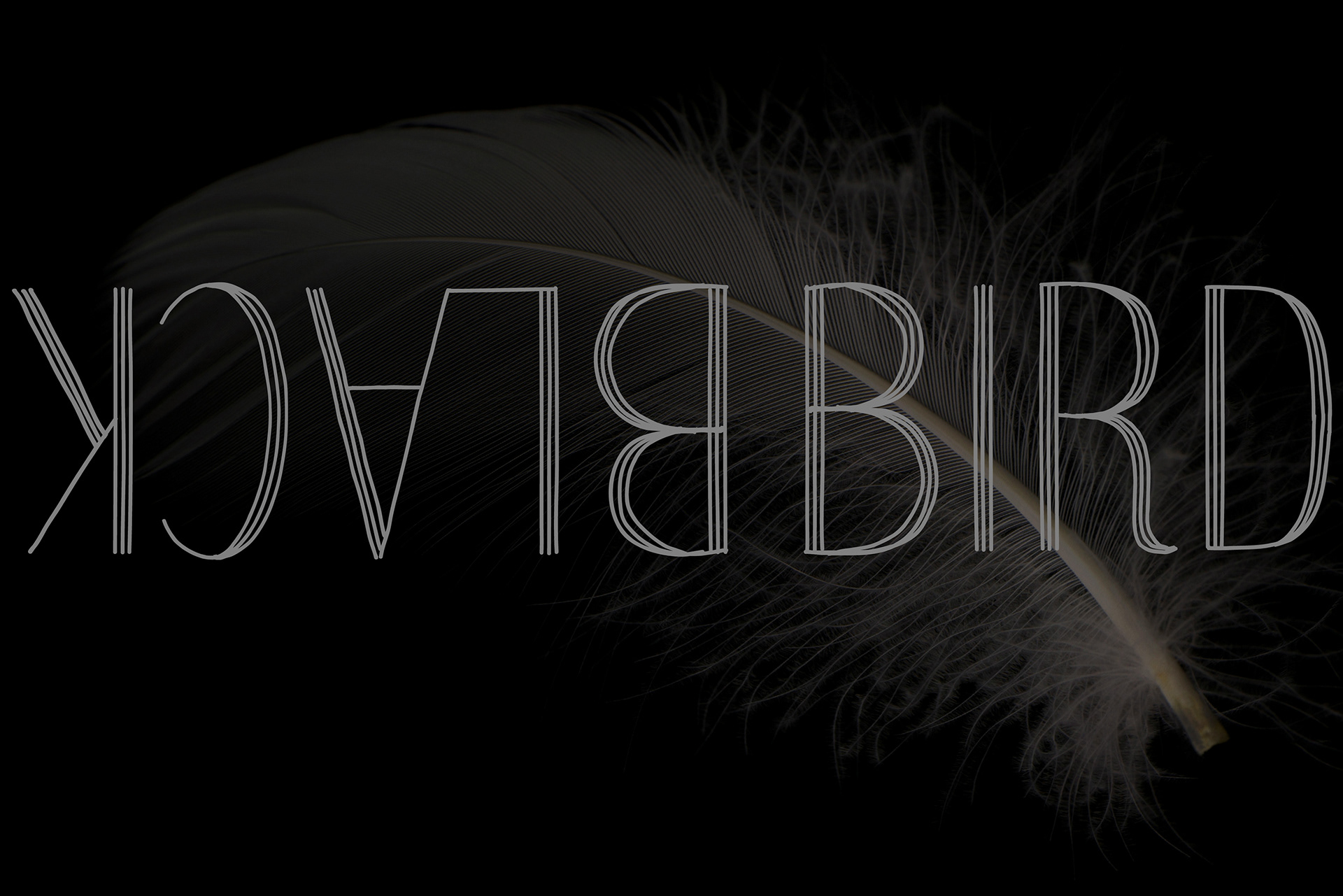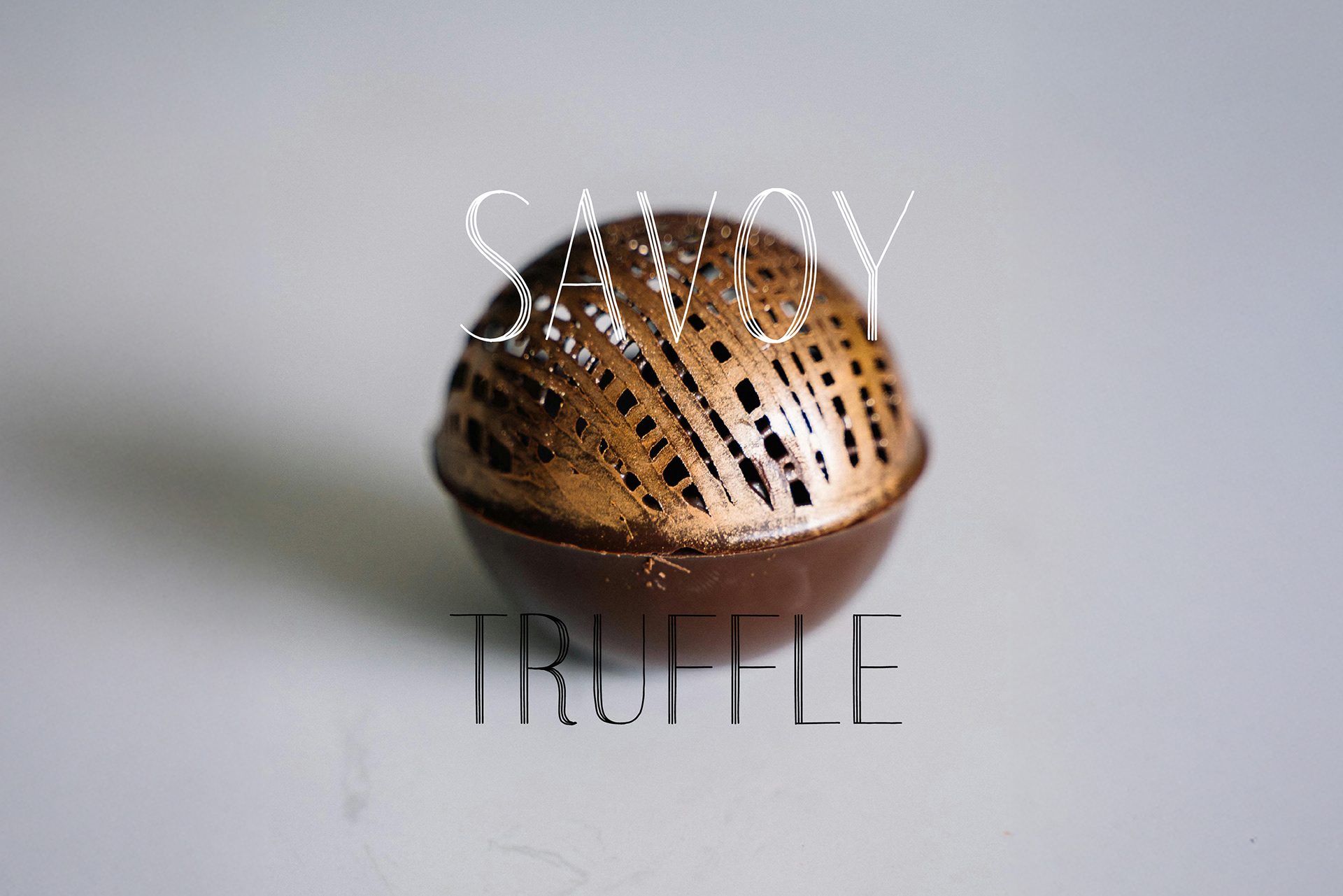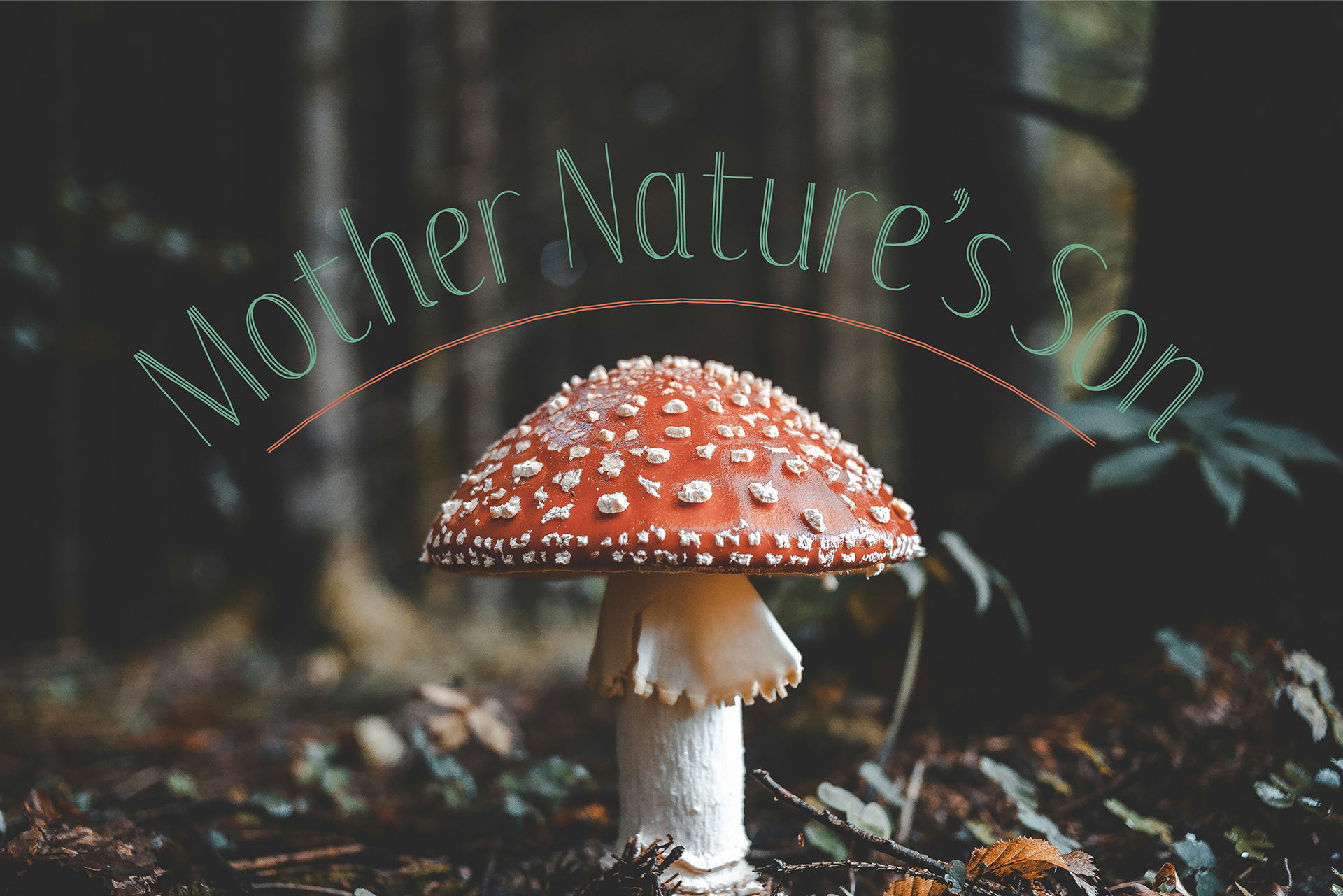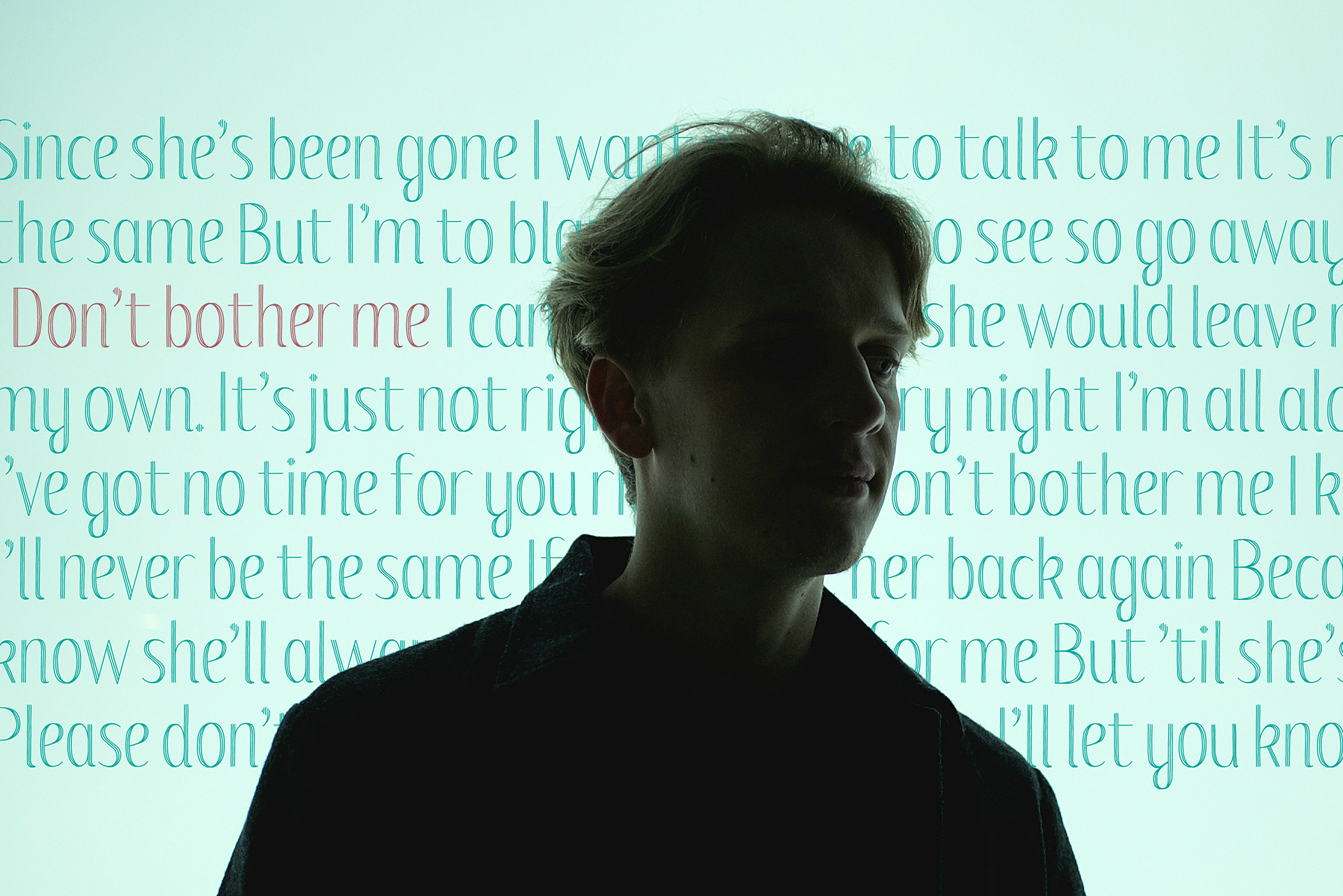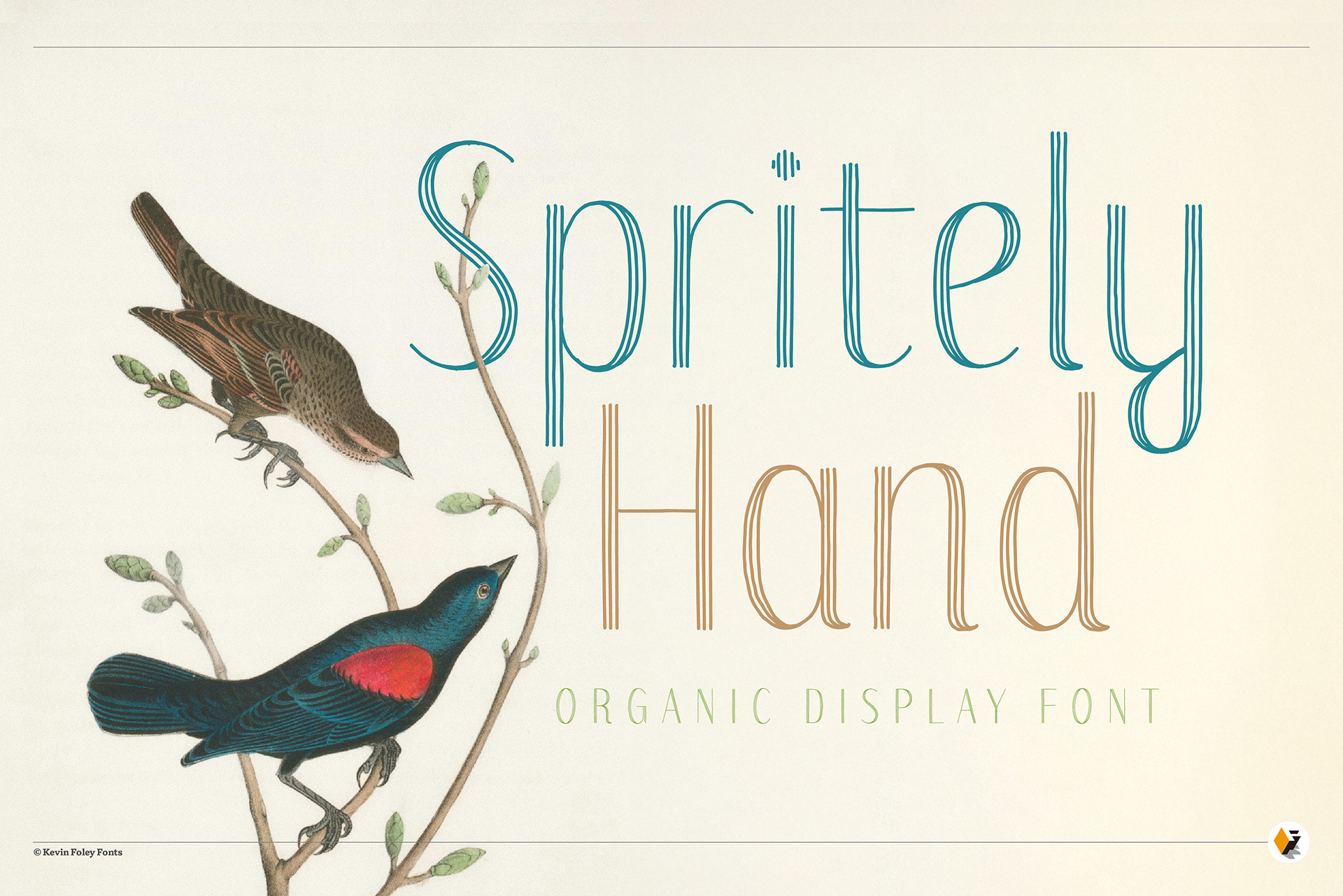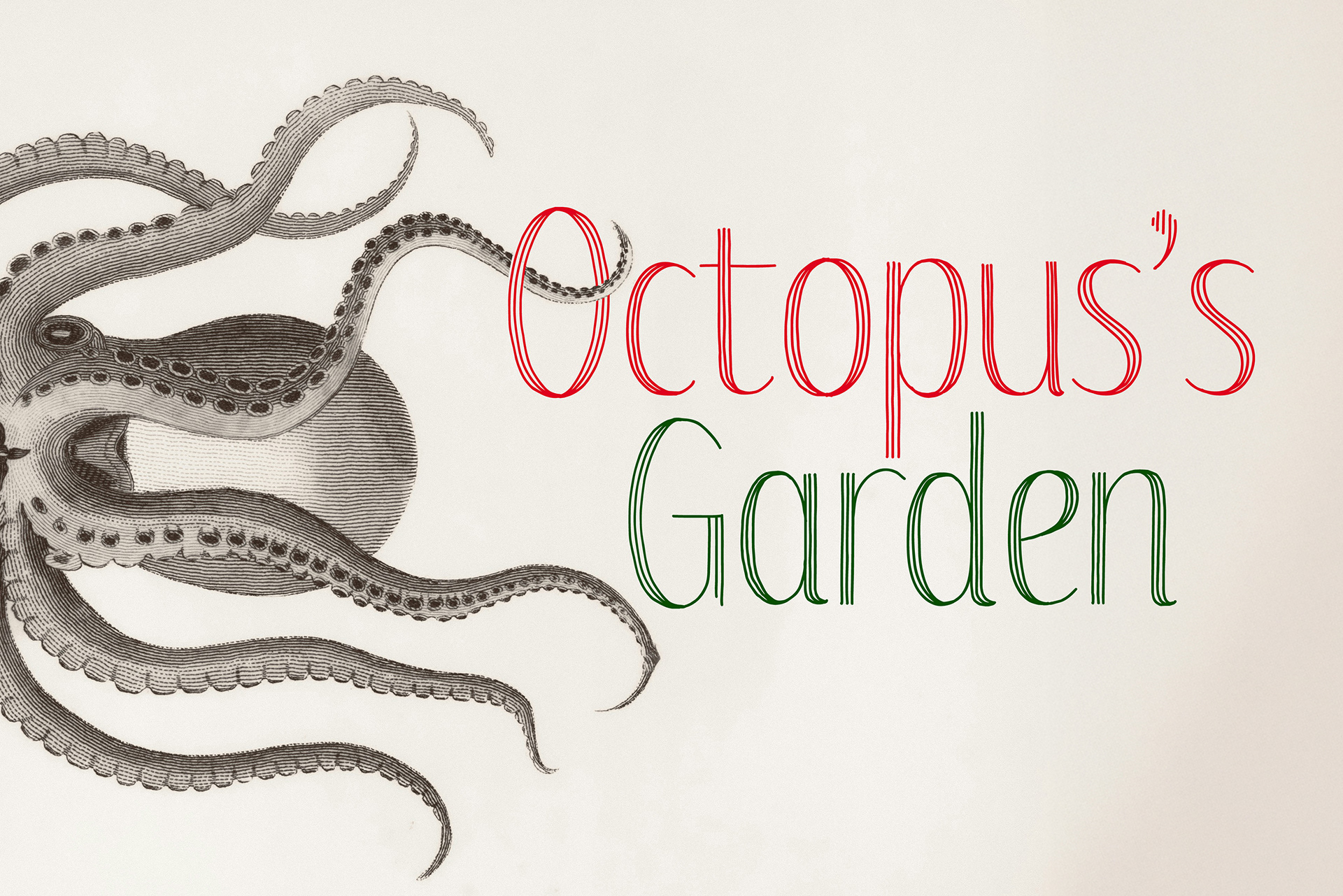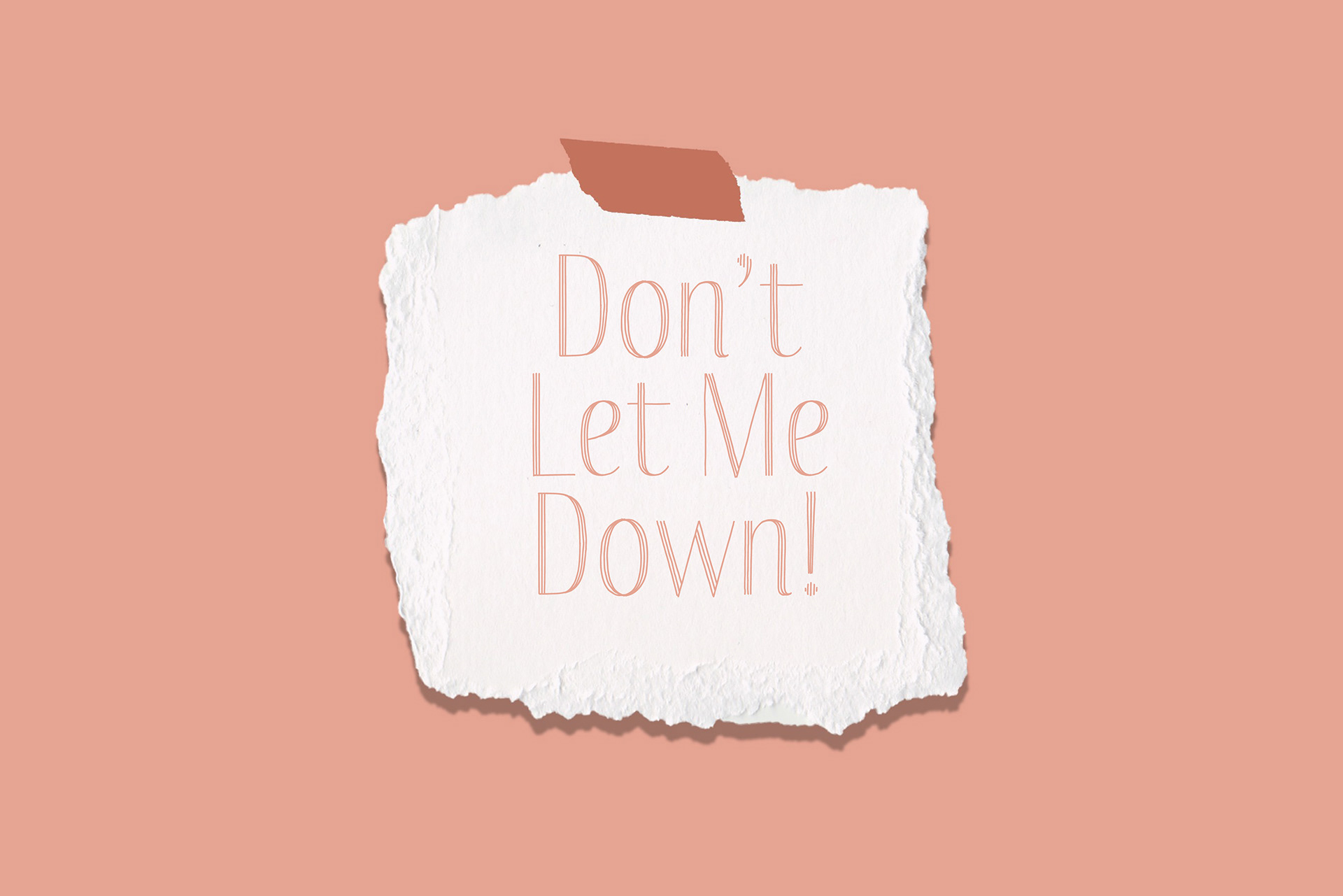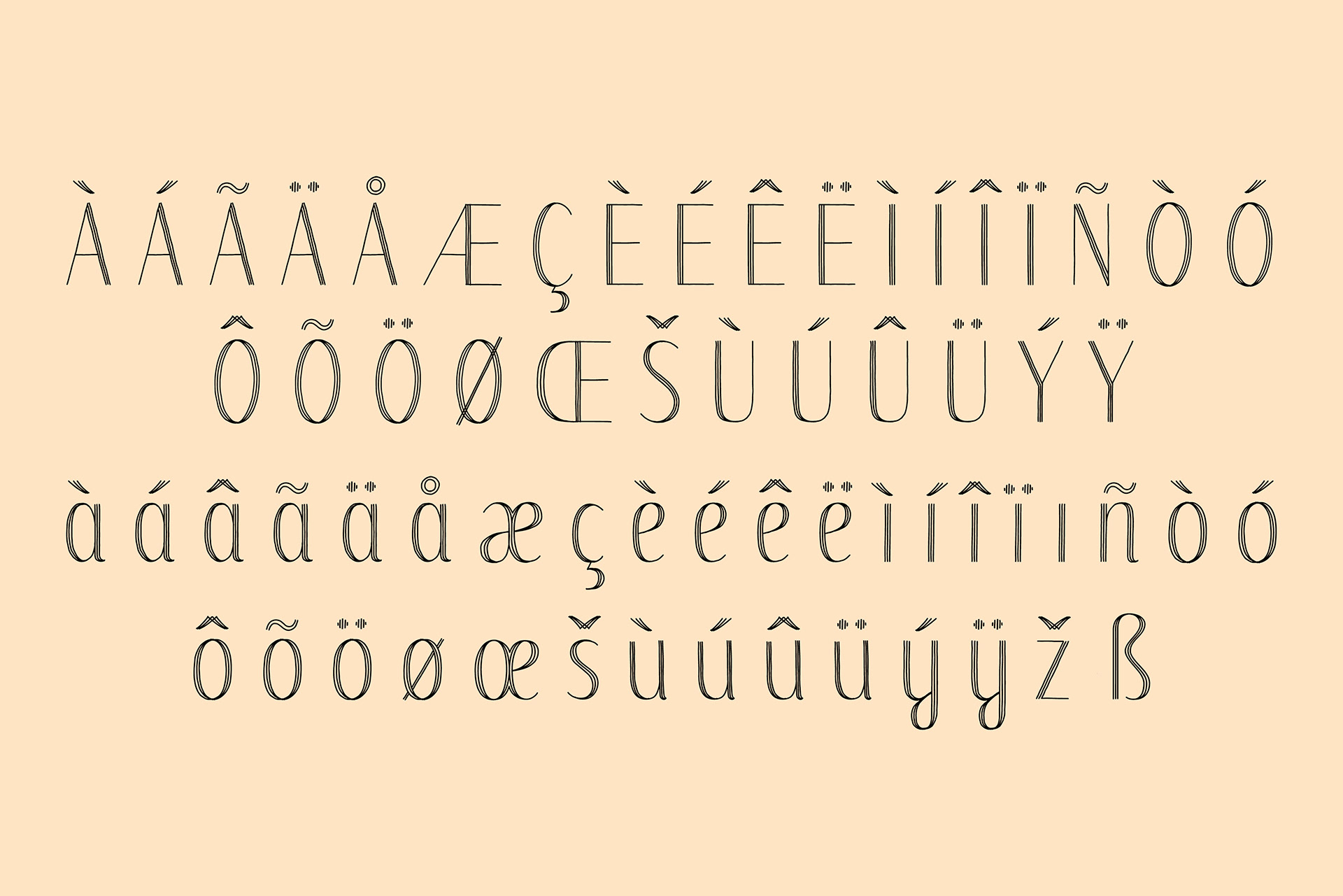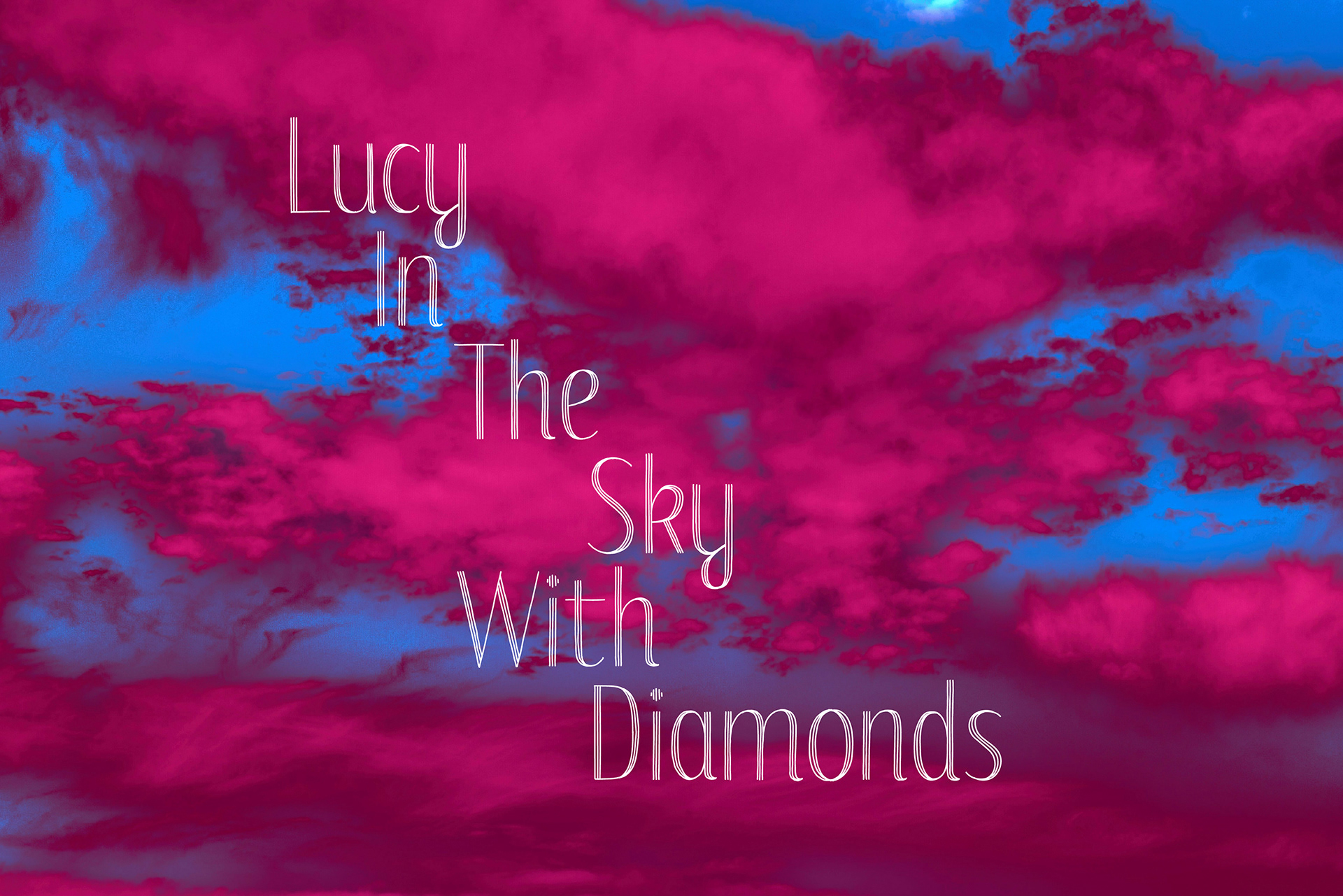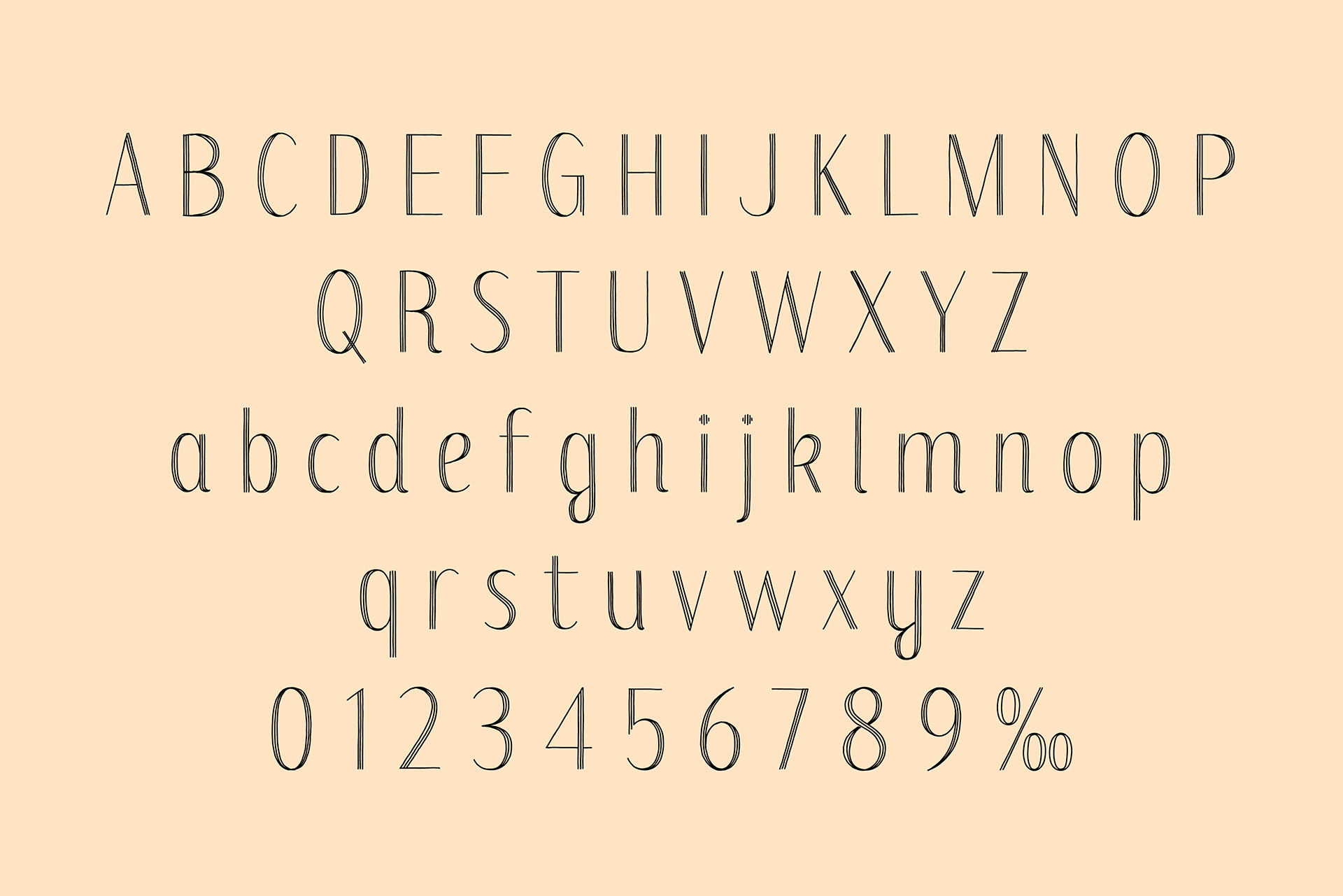
Spritely Hand — Organic Display Font
Spritely Hand is a condensed, hand-drawn display font with elegant shapes that feel warm and organic—sophisticated but never stiff. It was born from a sketching method I used while developing Spritely—using parallel strokes to simulate the thicks and thins of pointed-pen calligraphy. The immediacy and warmth of those shapes stayed with me, and I've preserved that organic energy in the finished font. The condensed proportions work beautifully for packaging, labels, wedding stationery, and social media graphics—bringing an approachable, human touch to small business branding, boutique identities, and craft-focused projects. It includes comprehensive international character support for both print and digital applications.